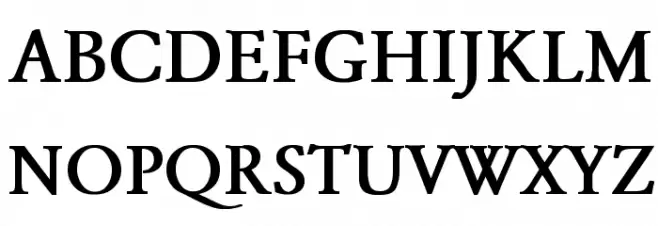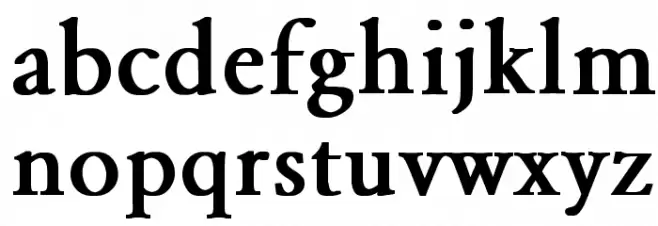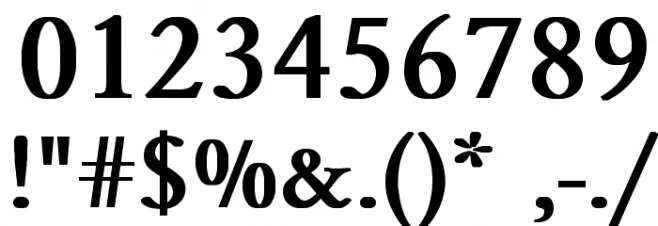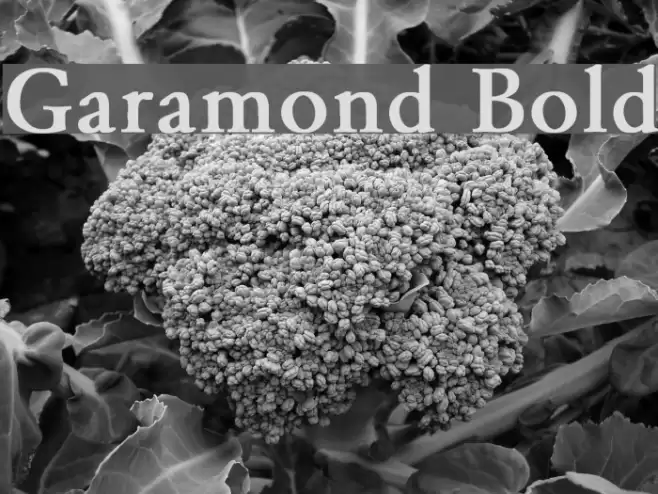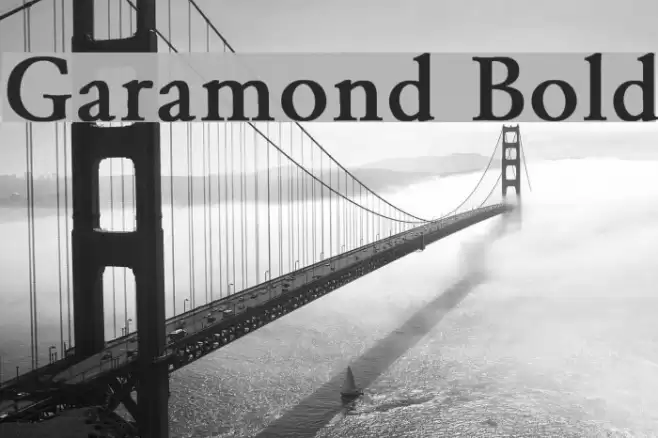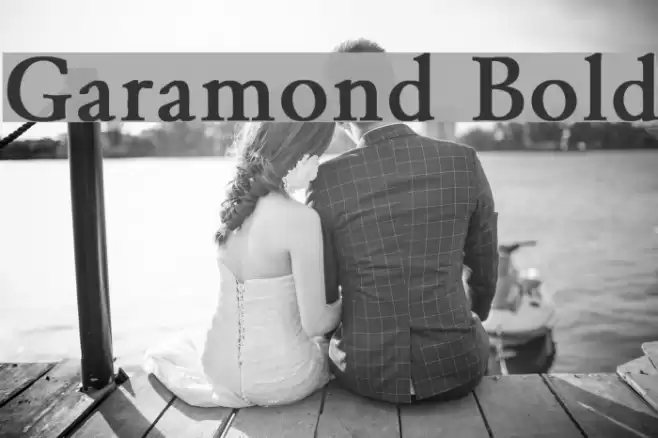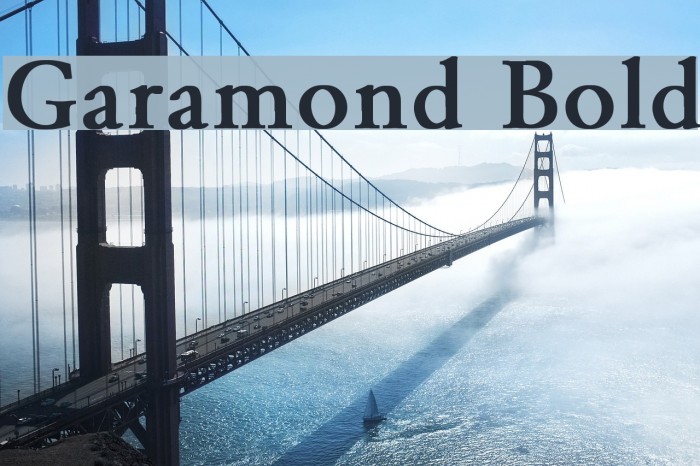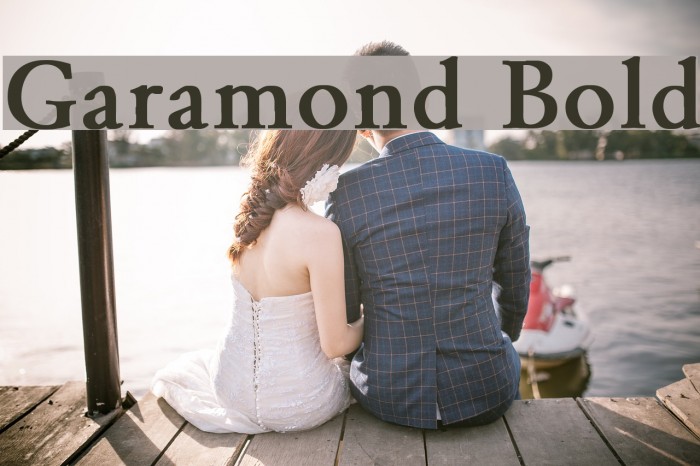
Garamond Bold
This font is a classic serif typeface known for its elegant and timeless design. It features smooth curves and a slightly condensed structure, making it highly readable. The serifs are well-defined and add a touch of sophistication, while the overall weight of the font is bold, providing a strong presence on the page. The contrast between thick and thin strokes is medium, giving it a balanced and harmonious appearance. This font is versatile, suitable for both print and digital media, and works well in a variety of sizes.
A bold, classic serif typeface with medium contrast and elegant curves.
- Proposed Projects: Ideal for book typesetting, formal invitations, branding, and editorial design.
- Category: Serif
- Overall Style: Classic